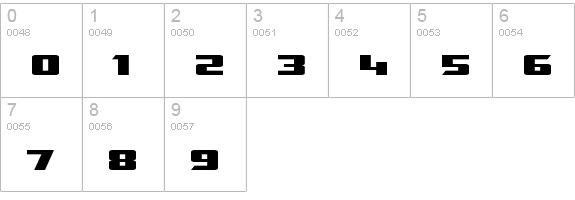
TransRobotics Extended is a distinctive, extended-width variant in the TransRobotics typeface family \xE2\x80\x94 well suited to design and typography projects.
Introducing TransRobotics Extended, a font that combines futuristic aesthetics with a touch of mechanical precision. This captivating typeface brings to life the essence of technological innovation, making it the perfect choice for any project seeking to convey a cutting-edge and forward-thinking vibe. TransRobotics Extended is meticulously crafted, with each letterform designed to reflect the sleekness and sophistication of advanced robotics. Its sharp edges and geometric shapes create a sense of order and efficiency, while its extended proportions give it a commanding presence on the page. Whether you are designing a logo for a tech startup, creating eye-catching headlines for a science fiction novel, or developing a website for a robotics company, TransRobotics Extended will effortlessly add a modern and professional touch to your work. Its versatility allows it to shine in both digital and print mediums, making it a valuable asset for any designer. But what truly sets TransRobotics Extended apart is that it is freely available to download at FontsMarket.com. Yes, you read that right – this exceptional font can be yours at no cost. FontsMarket.com, the premier destination for high-quality typefaces, understands the importance of accessibility and the power of design. By offering TransRobotics Extended for free, they empower creatives from all walks of life to add a touch of technological brilliance to their projects without breaking the bank. So, don't miss out on the opportunity to elevate your design game and captivate your audience with TransRobotics Extended. Download it now, exclusively at FontsMarket.com, and unleash the power of futuristic typography in your next masterpiece.